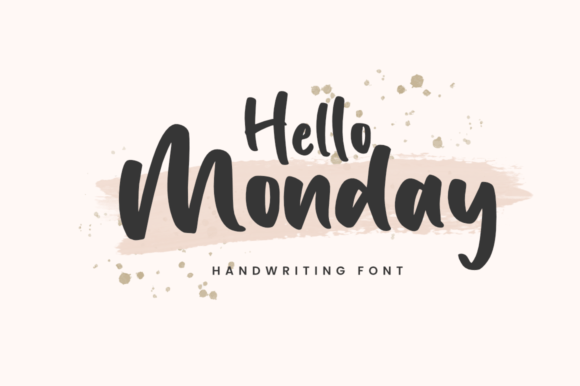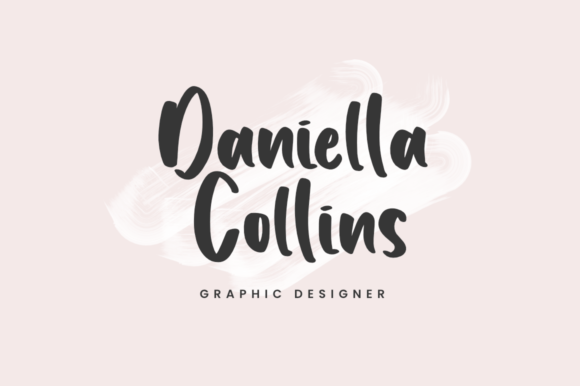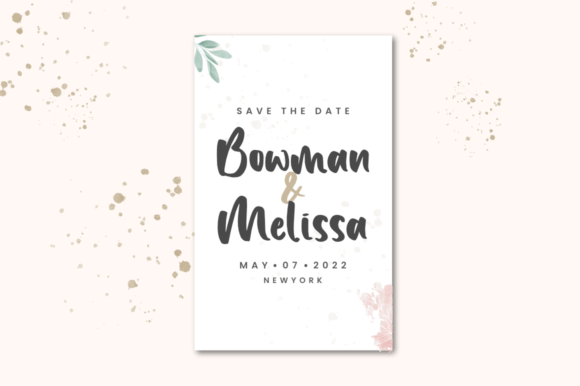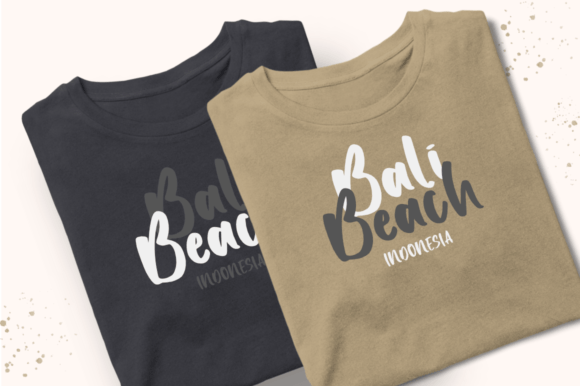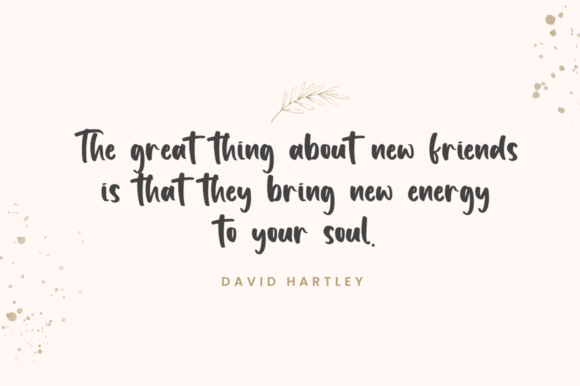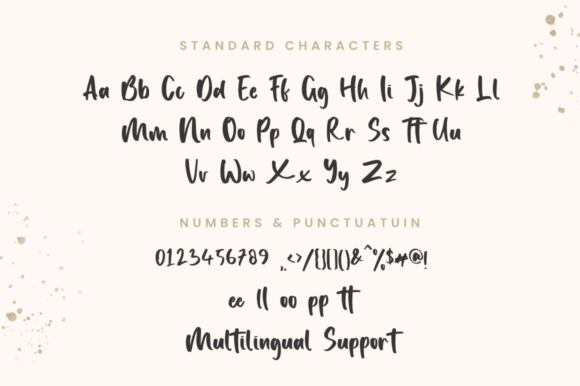
Hello Monday Font
About Hello Monday Font
Hello Monday is a unique and cute handwritten font, you can use fonts for your designs such as logos, branding, magazines, quotes, wedding invitations, and others.
This font is made to fulfill your need to make your designs look good!